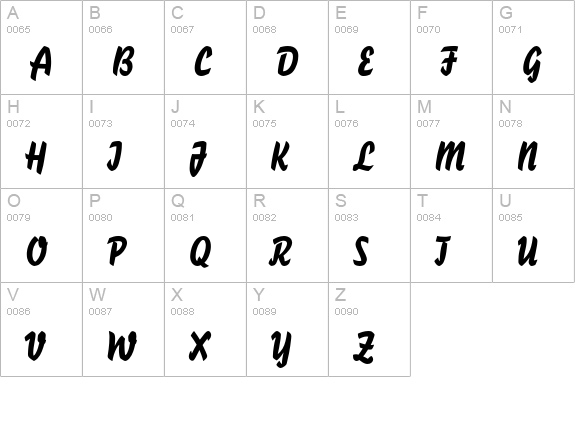
Bison BQ Font Details
Bison BQ font is a versatile and modern typeface that exudes strength and boldness. Its clean lines and sharp edges make it perfect for headlines, branding, and graphic design projects that demand attention. With a distinctive and powerful presence, Bison BQ font stands out in any setting. What's even better? Bison BQ font is completely free to download at FontsMarket.com. That's right, you can enhance your designs with this impressive font without spending a dime. Don't miss out on the opportunity to add Bison BQ font to your collection and take your projects to the next level.